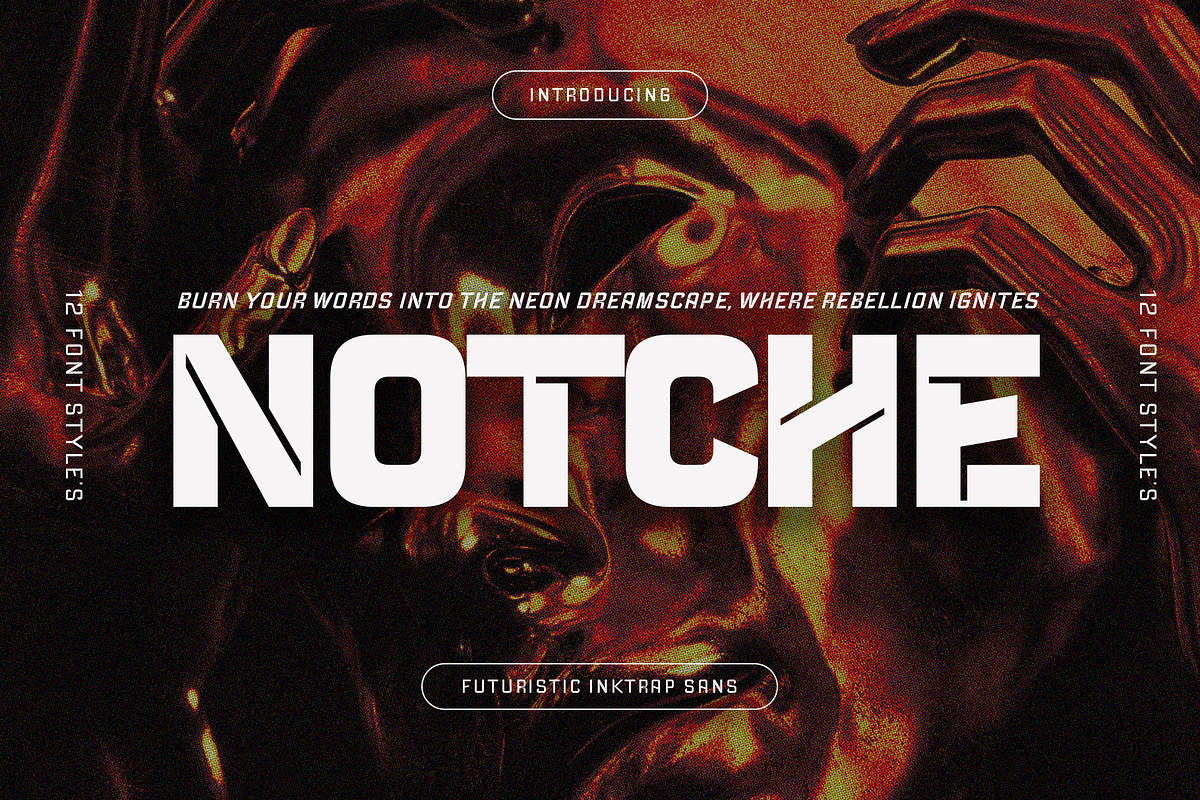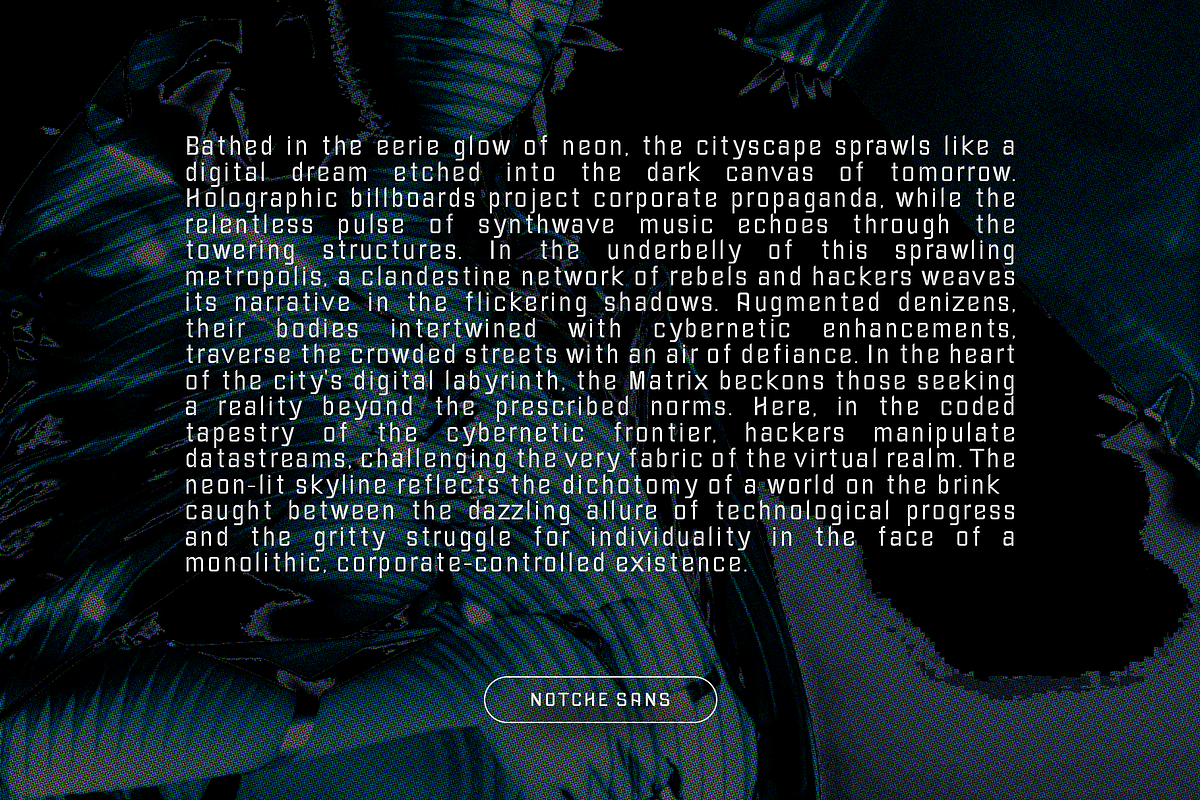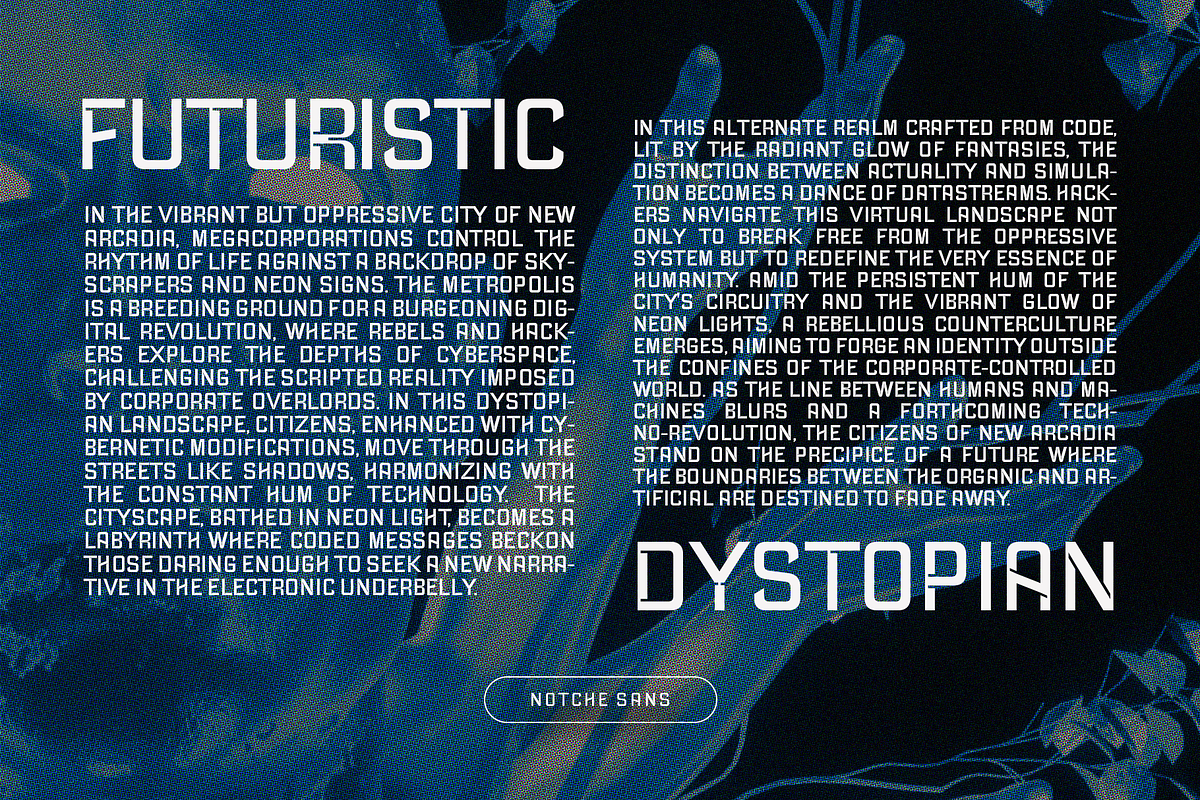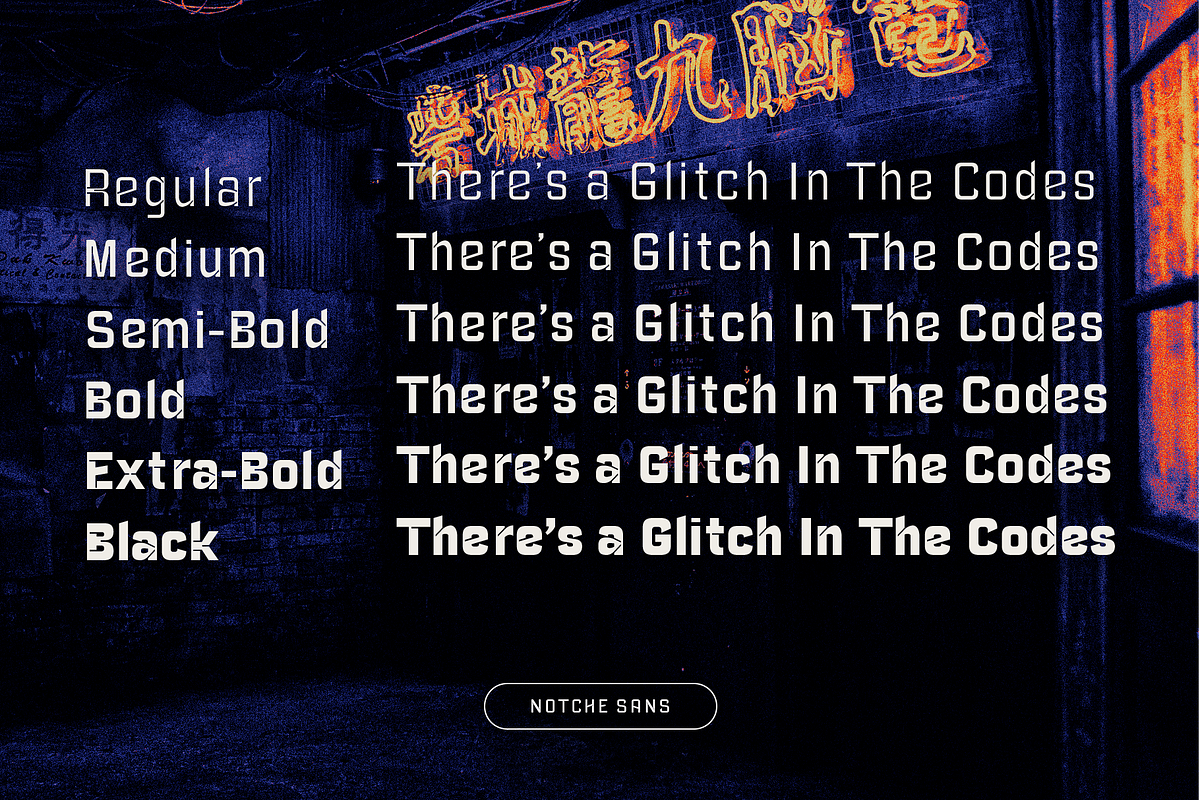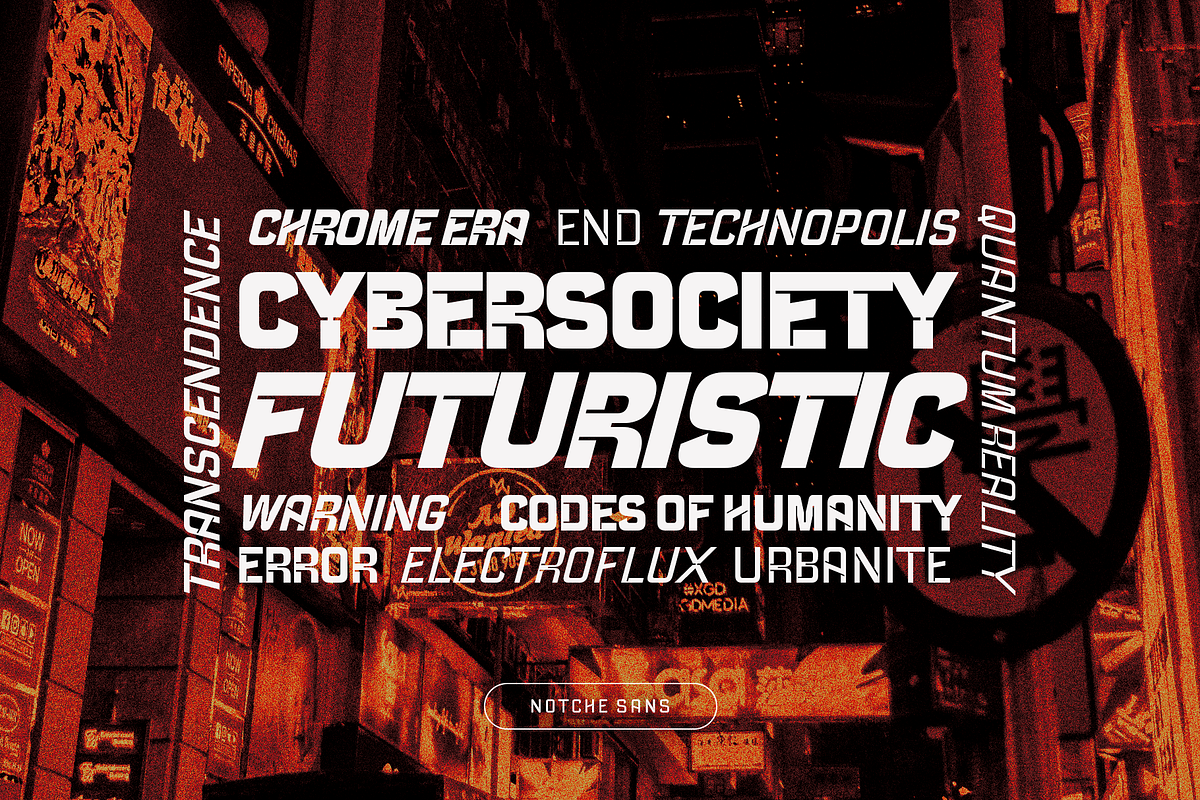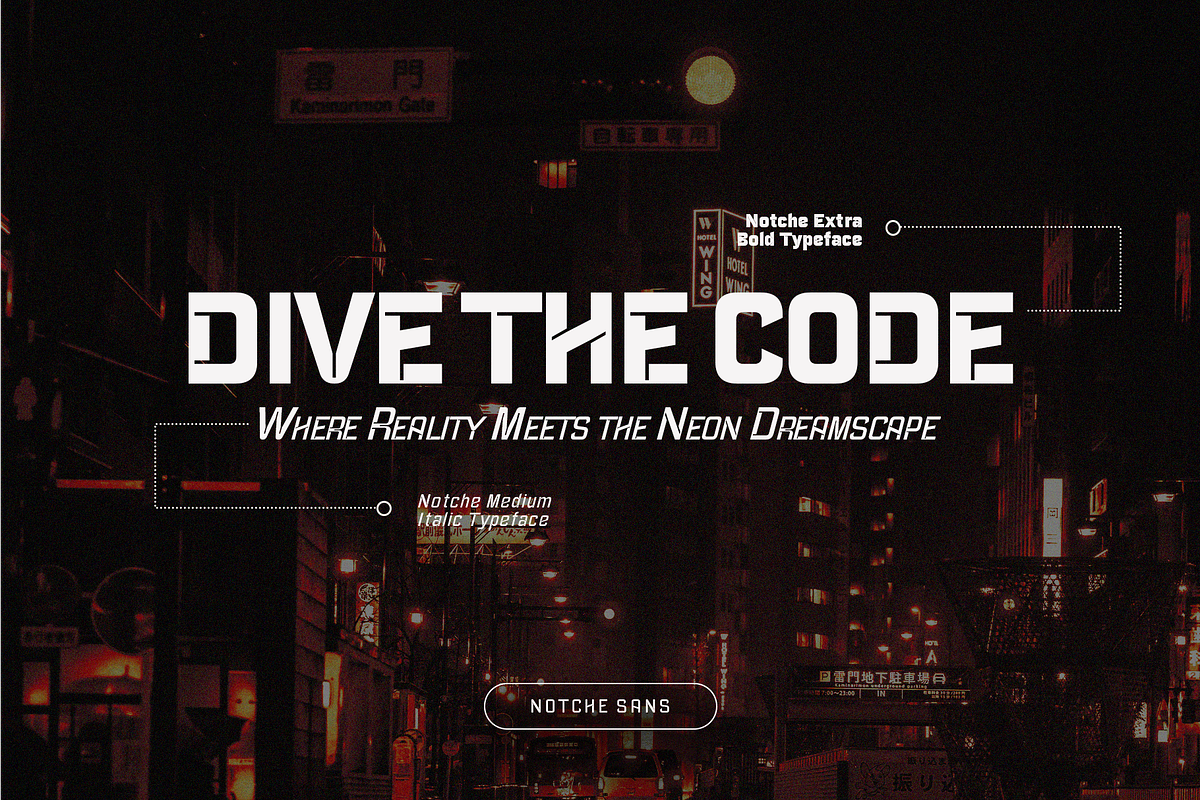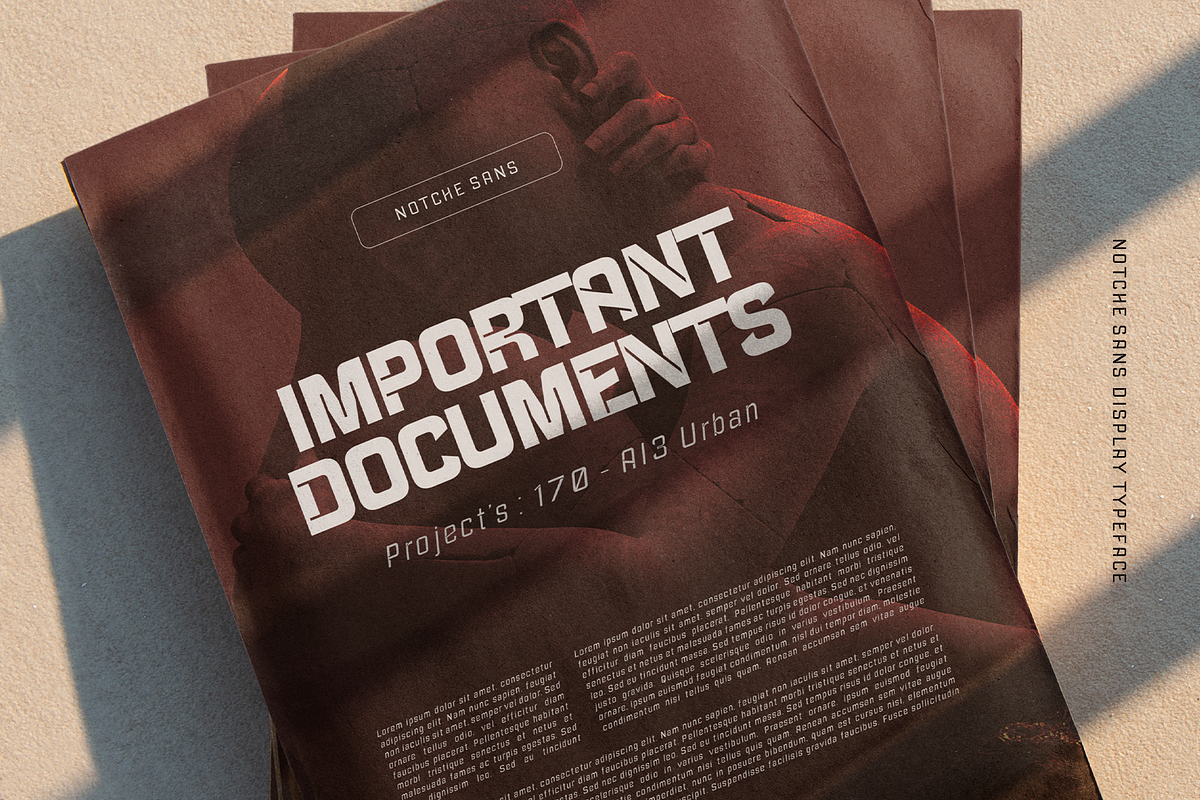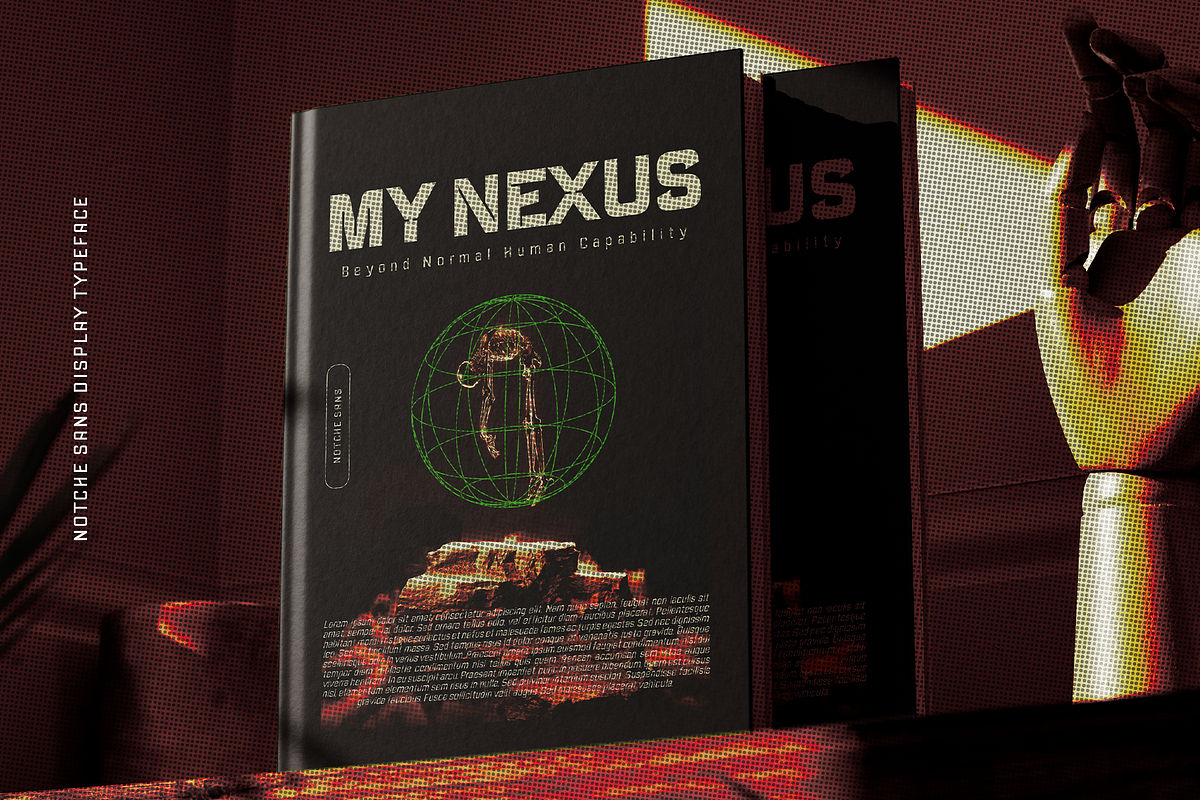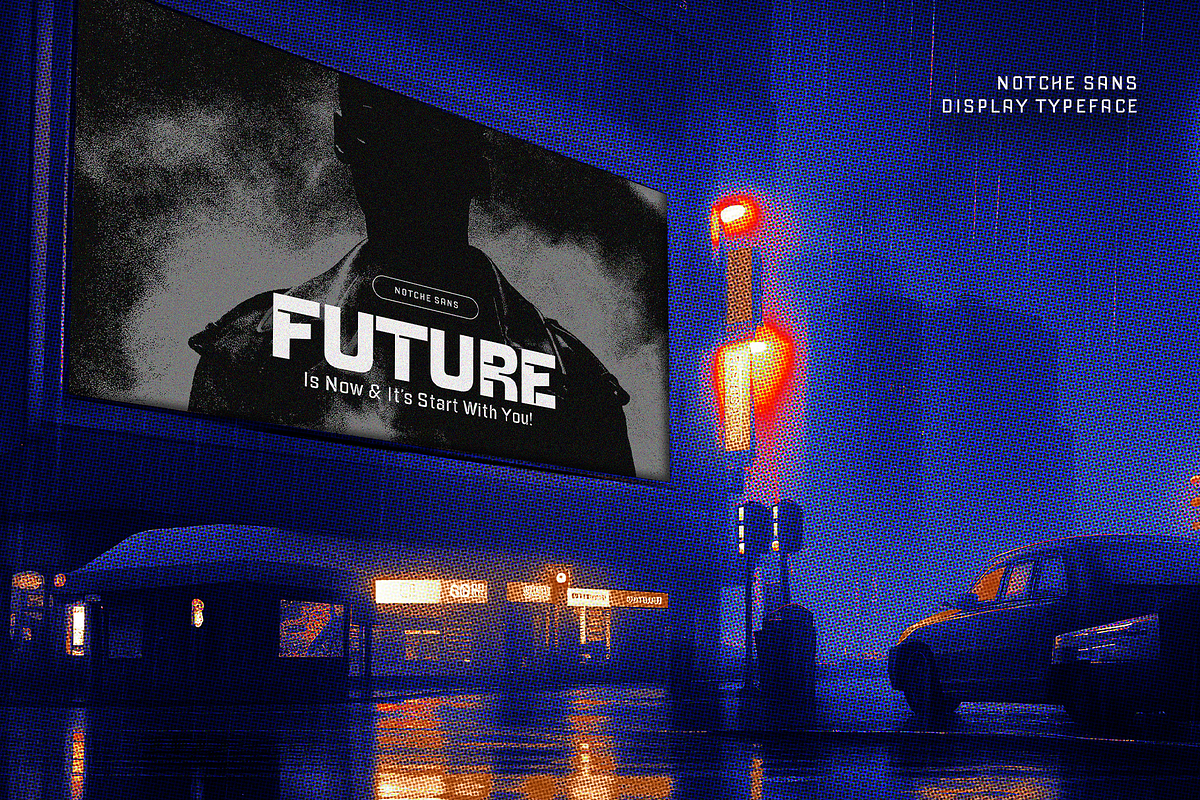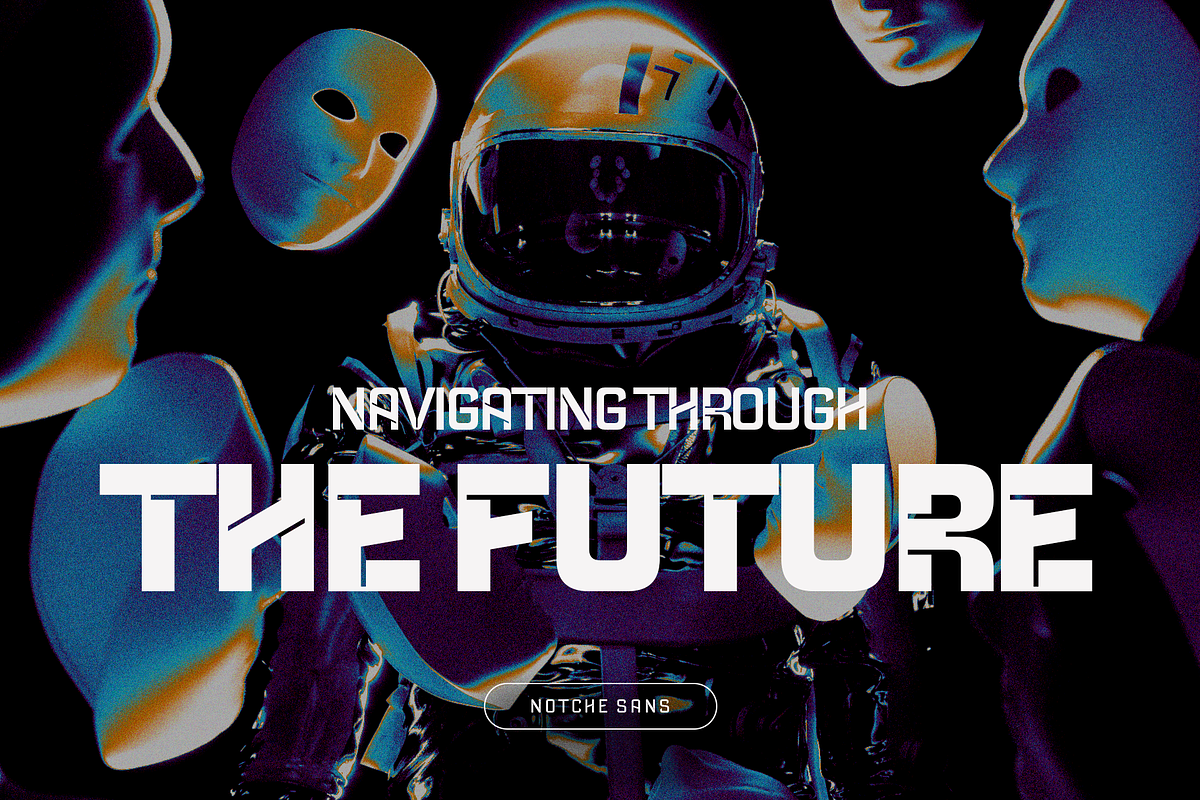
CF Notche - Futuristic Sans
Notche is a sleek and sophisticated sans-serif font with a touch of futuristic flair. Its clean lines, inktrap details, and versatile styles make it a powerful tool for designers seeking to create modern and impactful designs. Whether you're crafting a sci-fi movie poster, designing a cutting-edge website, or simply adding a touch of sophistication to your next project, Notche is a font that deserves a closer look.